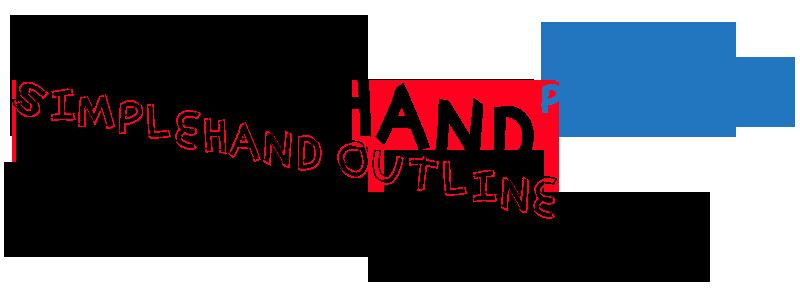
Simplehand Outline, created by Andy Greer and Max Infeld of Xerographer.com, is a free outlined graffiti font with the restless shape of quickly drawn marker lettering. Its uneven capitals swing between broad, open forms and tighter angular shapes, with wandering contours and noticeably sharp changes of direction that keep the alphabet lively from letter to letter.
Posters are its strongest setting, especially for skate events, independent music nights, and youth merchandise. The lettering can also turn a record sleeve or streetwear graphic into an illustrated sign, since the hollow forms invite color, pattern, or rough imagery inside their loose edges.